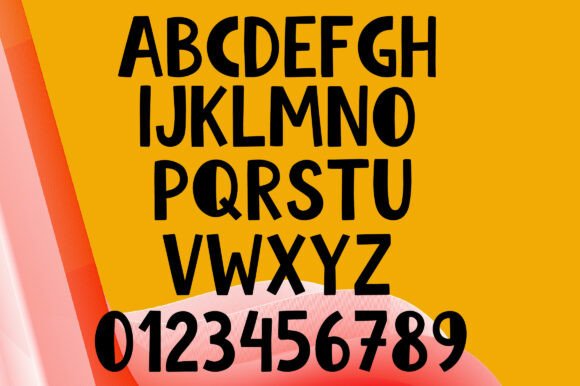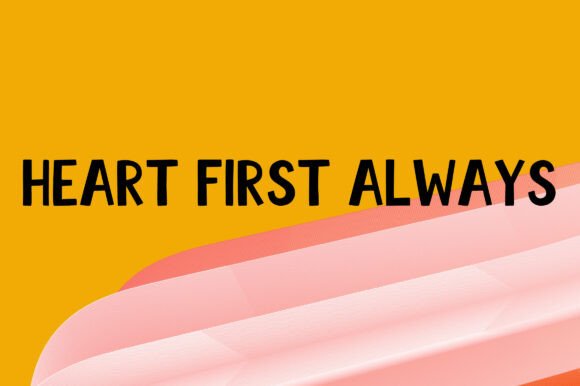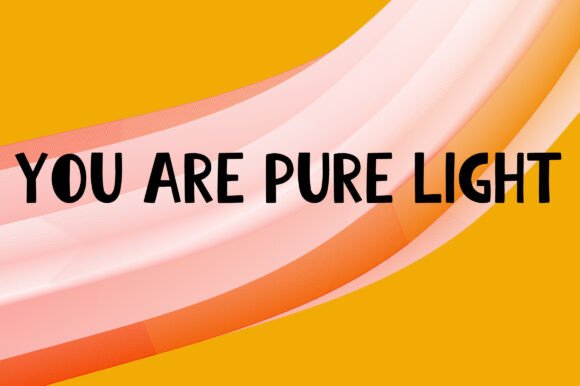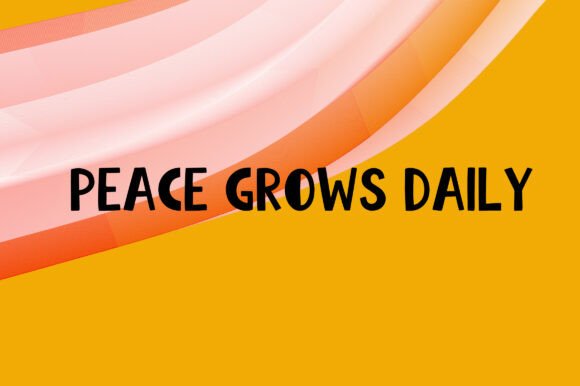
Introducing Alyssa Font: The Perfect Blend of Playfulness and Modernity
In the world of typography, fonts play a crucial role in conveying the tone and personality of a brand, product, or creative project. If you’re a designer, craftsperson, or simply a DIY enthusiast looking for a font that exudes confidence, playfulness, and modernity, look no further than Alyssa Font. This bold display font is designed to make a statement, and in this article, we’ll explore its unique features, uses, and benefits.
The Unique Characteristics of Alyssa Font
Alyssa Font is a bold display font that boasts a playful, handcrafted style with a strong modern character. Its uppercase letterforms are distinguished by tall proportions, slightly irregular shapes, and smooth rounded edges, which combine to create a fun, lively, and eye-catching look. The font features uppercase letters A–Z and numbers 0–9, making it perfect for a wide range of creative applications.
Key Features of Alyssa Font
- Bold and Playful: Alyssa Font is designed to make a statement with its bold and playful style, perfect for grabbing attention and conveying confidence.
- Handcrafted Feel: The font’s handcrafted style gives it a unique, human touch that sets it apart from more traditional, uniform fonts.
- Modern Character: Alyssa Font’s modern character makes it perfect for contemporary brands, products, and creative projects that require a fresh, up-to-date look.
- Tall Proportions: The font’s tall proportions ensure that it stands out, even at smaller sizes, making it ideal for use in a variety of applications.
- Slightly Irregular Shapes: The slightly irregular shapes of the letterforms add a touch of whimsy and playfulness to the font, making it perfect for creative projects.
- Smooth Rounded Edges: The smooth rounded edges of the font give it a friendly, approachable feel that’s perfect for brands and products that want to convey a sense of approachability.
Uses for Alyssa Font
Alyssa Font is a versatile font that can be used in a wide range of creative applications, including:
- Branding: Use Alyssa Font to create bold, eye-catching logos and branding materials that make a statement.
- Posters: The font’s bold, playful style makes it perfect for use in posters and other large-format prints.
- Packaging: Add a touch of personality to your product packaging with Alyssa Font, which is sure to stand out on store shelves.
- Headlines: Use Alyssa Font to create bold, attention-grabbing headlines for your website, blog, or social media channels.
- Invitations: The font’s playful, modern style makes it perfect for use in invitations, whether you’re planning a wedding, birthday party, or other special event.
- Social Media Graphics: Use Alyssa Font to create eye-catching social media graphics that are sure to grab attention.
- Creative Projects: Whether you’re a craftsperson, artist, or DIY enthusiast, Alyssa Font is the perfect choice for a wide range of creative projects.
Benefits of Using Alyssa Font
So why choose Alyssa Font for your next creative project? Here are just a few benefits of using this versatile font:
- Unique Style: Alyssa Font offers a unique, playful style that’s sure to set your project apart from the competition.
- Versatility: The font’s versatility makes it perfect for use in a wide range of creative applications.
- Easy to Read: Despite its bold, playful style, Alyssa Font is easy to read, even at smaller sizes.
- Customizable: The font’s handcrafted style makes it easy to customize, whether you want to add your own personal touches or experiment with different colors and textures.
In conclusion, Alyssa Font is a bold, playful display font that’s perfect for designers, craftspersons, and DIY enthusiasts looking to add a touch of personality to their creative projects. With its unique style, versatility, and ease of use, Alyssa Font is sure to become a go-to choice for anyone looking to make a statement. So why wait? Try Alyssa Font today and see the difference it can make in your next creative project!